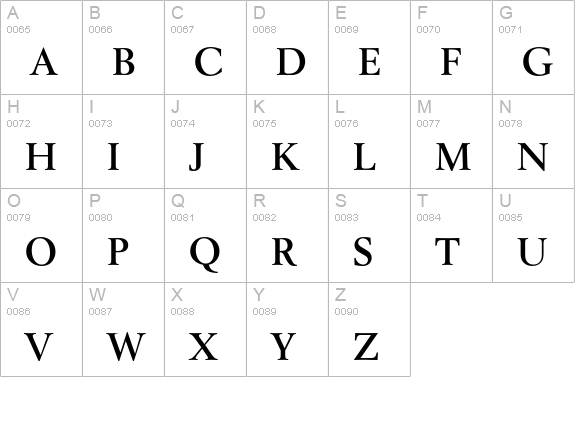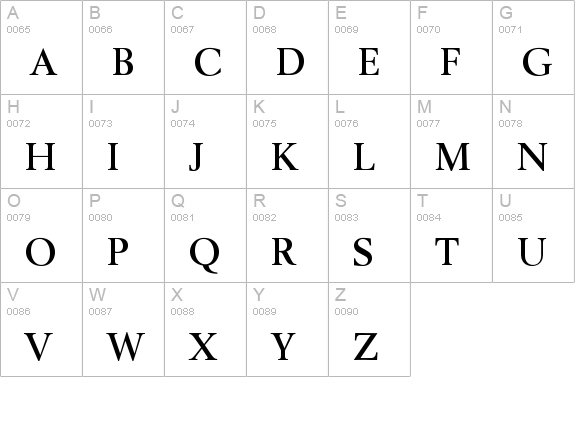
Berling T Bold is a strong, high-contrast variant in the Berling typeface family \xE2\x80\x94 well suited to headlines, attention-grabbing titles, and strong calls-to-action.
Berling T Bold is a classic and elegant font that exudes strength and sophistication. With its bold and commanding appearance, this typeface stands out and makes a lasting impression. The thick strokes and sharp serifs give Berling T Bold a timeless appeal that is perfect for a wide range of design projects. Whether you are working on a logo, packaging design, or poster, Berling T Bold will add a touch of professionalism and refinement to your work. The versatility of this font makes it suitable for both print and digital applications, ensuring that your message is communicated effectively. And the best part? Berling T Bold is available for free download at FontsMarket.com. This means you can easily access this high-quality font and use it in your projects without any hassle. Don't miss out on the opportunity to enhance your designs with the beauty and impact of Berling T Bold. Download it today and elevate your creations to the next level.